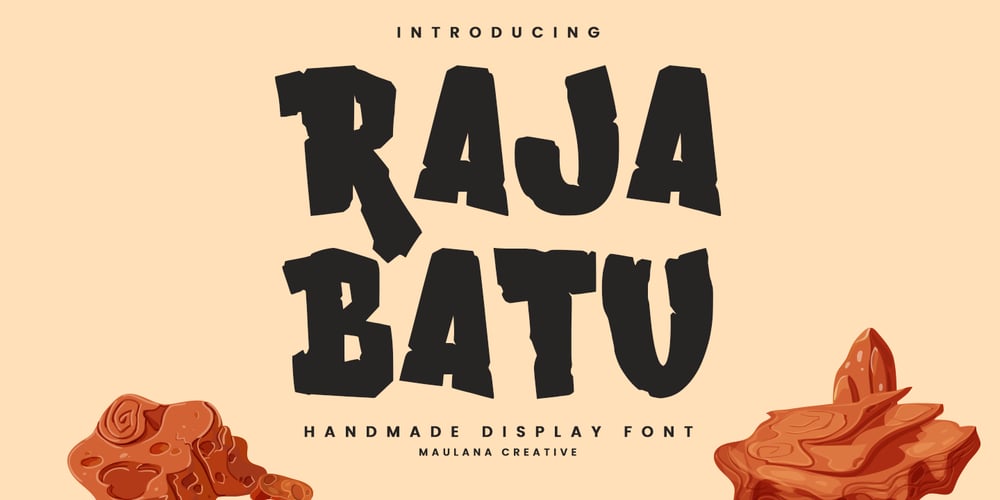
MC Raja Batu
MC Raja Batu font
MC Raja Batu Font Family was designed by Gilang Maulana and published by Maulana Creative. MC Raja Batu contains 1 styles and family package options. Raja Batu display font. With bold stroke, fun character with alternates. To give you an extra creative work. Raja Batu display font support multilingual language. This font is good for logo design, Social media, Movie Titles, Books Titles, a short text even a long text letter and good for your secondary text font with sans or serif. Make a stunning work with Raja Batu display font.Cheers,Maulana Creative